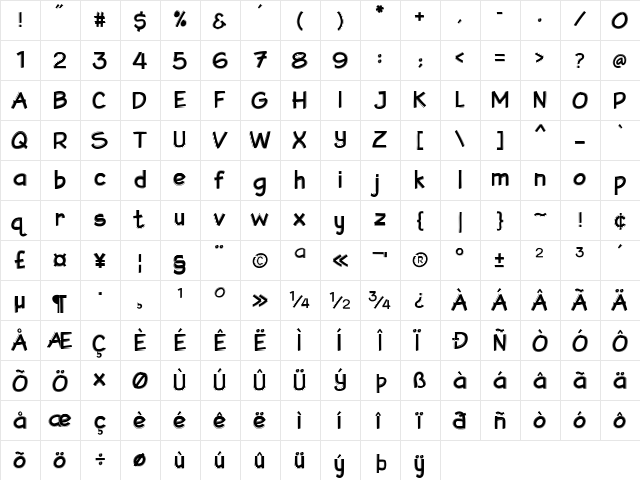
Artescratch Regular
Design Context for Artescratch Typeface
Artescratch takes a measured approach to typography — its balanced proportions and neutral character make it a reliable workhorse for both digital and print work.